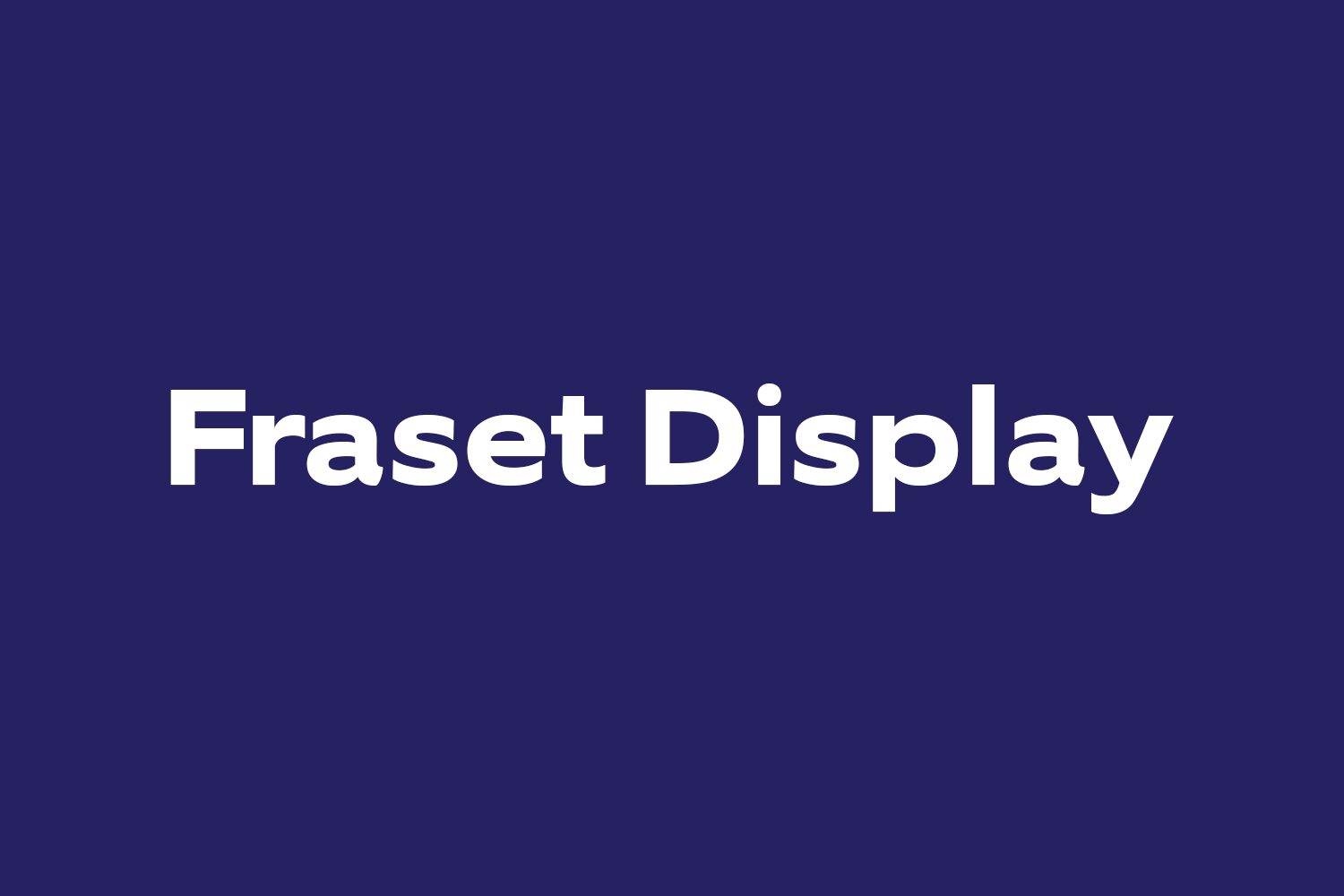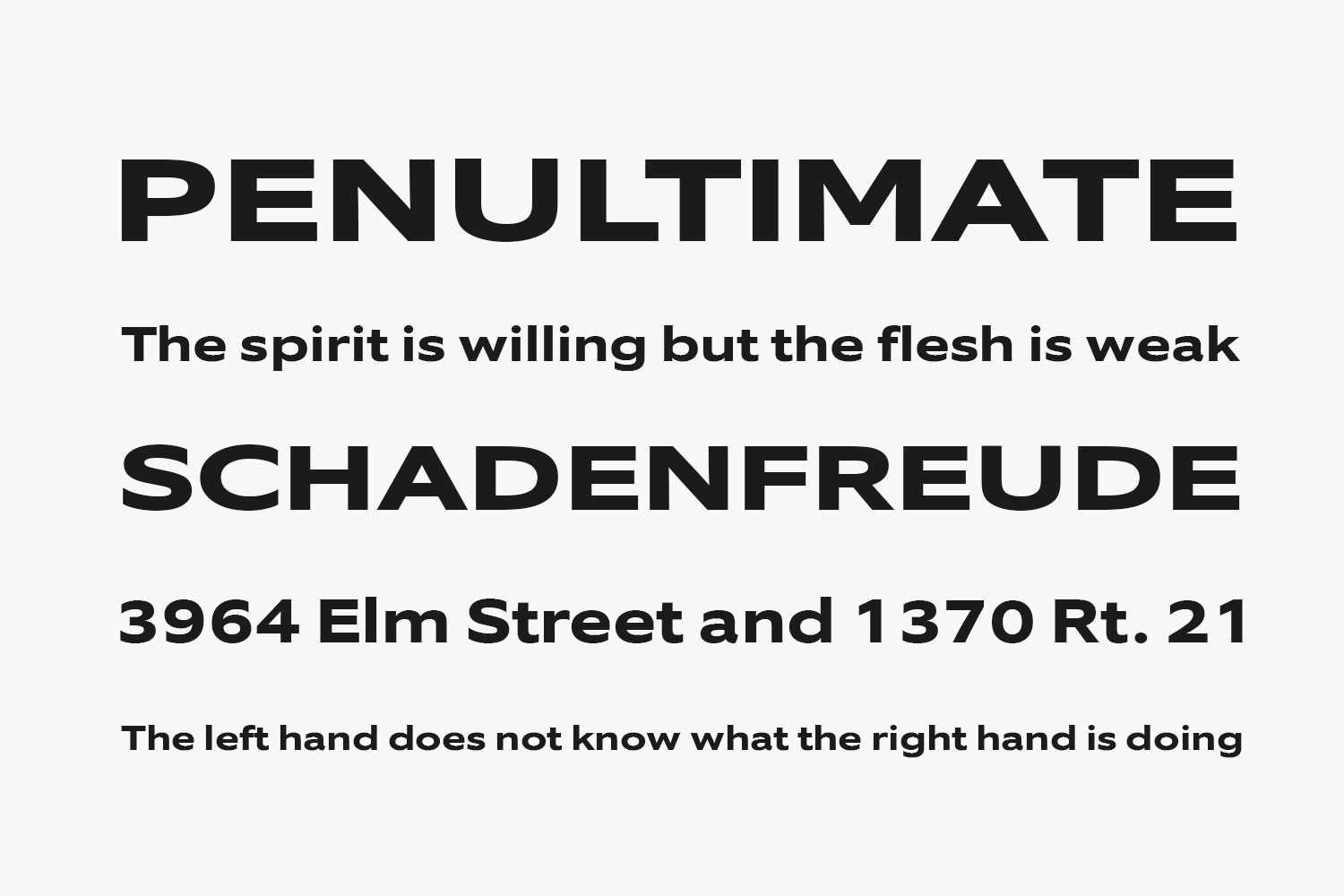
Fraset Display Free Font is a modern sans serif font featuring a bold stroke, fun characters, and unique ligatures. This font is good for logo design, Social media, Movie Titles, Books Titles, short text, even long text. Make stunning work with Fraser Display. Fraset Display Free Font is free for personal use only. Please purchase the full version for commercial use.
Designed by Maulana Creative